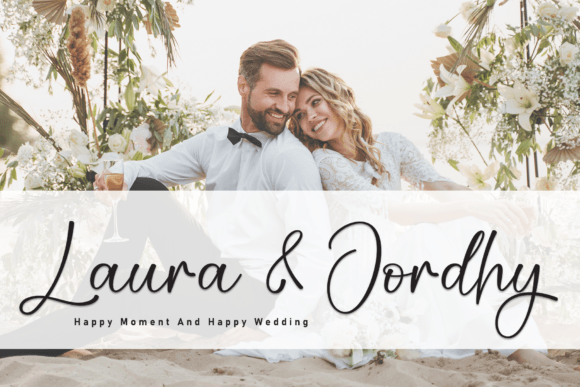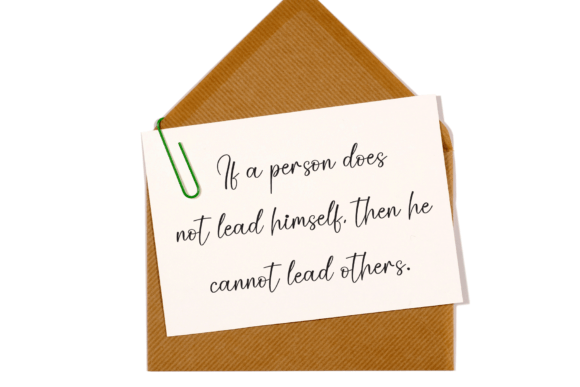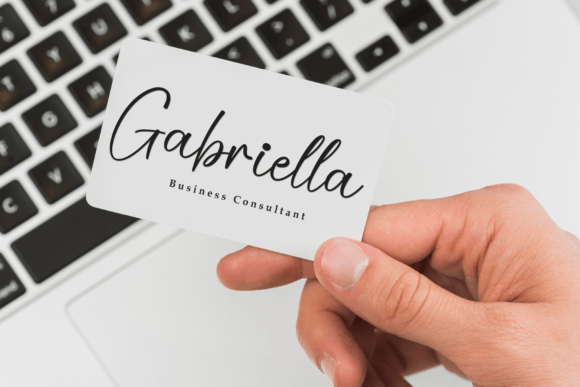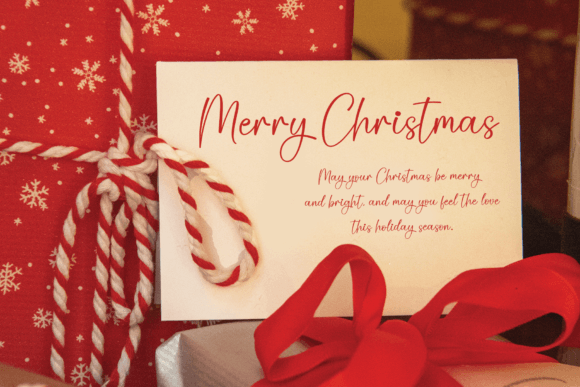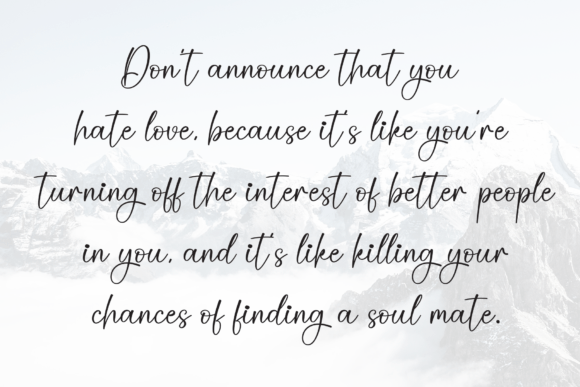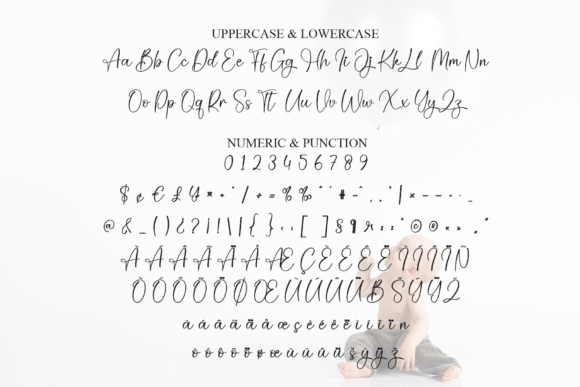
Unleash Your Inner Artist: Discover the Magic of Babyish Font
Have you ever stared at a blank page, struggling to bring your creative vision to life? The blank canvas can be intimidating, but what if you had the perfect tool to make your ideas shine? That’s where the enchanting Babyish Font comes in – a delicate script font designed to add a touch of whimsy and elegance to your designs.
Whether you’re a seasoned designer or a creative enthusiast, the Babyish Font is a valuable addition to your toolkit. Its versatility makes it perfect for a range of applications, from Instagram posts to DIY projects and calligraphy scripts. With its unique charm, you’ll be able to transform your ideas into stunning pieces of art that captivate and inspire.
Babyish Font Key Features
- Unique Characteristics: Babyish Font features a whimsical, handwritten style with intricate details and flourishes, giving it a distinctive and playful look.
- Character Set: The font includes a comprehensive set of characters, including uppercase and lowercase letters, numbers, punctuation marks, and special characters, making it suitable for various applications.
- Font Style: The font is available in a single style, Babyish Regular, which is perfect for creating a consistent and cohesive visual identity in various design projects.
Babyish Font Review
Overall, I’m impressed with the Babyish Font. ✨ It’s a fun, whimsical font that’s perfect for creating a playful atmosphere. I love the way it adds a touch of innocence and charm to any design project.
- ✨ The font is highly customizable, allowing you to adjust the size, color, and style to fit your design needs.
- ✨ It’s incredibly versatile, suitable for a wide range of projects, from children’s books to marketing materials.
- ✨ The font is well-suited for titles and headings, adding a touch of whimsy and personality to your design.
- ⚠️ The font can be difficult to read in smaller sizes, particularly in body text.
- ⚠️ It may not be the best choice for formal or professional projects, as it can come across as too playful or immature.
- ⚠️ Some characters, such as the ‘i’ and ‘l’, can be easily confused with each other, which may lead to errors.
Overall, I think the Babyish Font is a great choice for designers looking to add a touch of playfulness and whimsy to their projects. Just be aware of its limitations and use it judiciously.
The Babyish font is commonly used for:
– Children’s book illustrations
– Baby product packaging
– Nursery decor
– Playful website headers
Alternatives to Babyish Font
Great Vibes is a playful, handwritten font that captures a carefree and youthful spirit. It’s perfect for designs that require a touch of whimsy and fun. Great Vibes is more elegant and refined compared to Babyish Font, making it suitable for a wider range of applications, from advertising to packaging.
Carolyna Pro is a modern, elegant script font that exudes sophistication and luxury. It’s ideal for designs that require a high-end feel, such as luxury branding, invitations, or high-end advertising. Unlike Babyish Font, Carolyna Pro is more polished and refined, making it suitable for formal and professional applications.